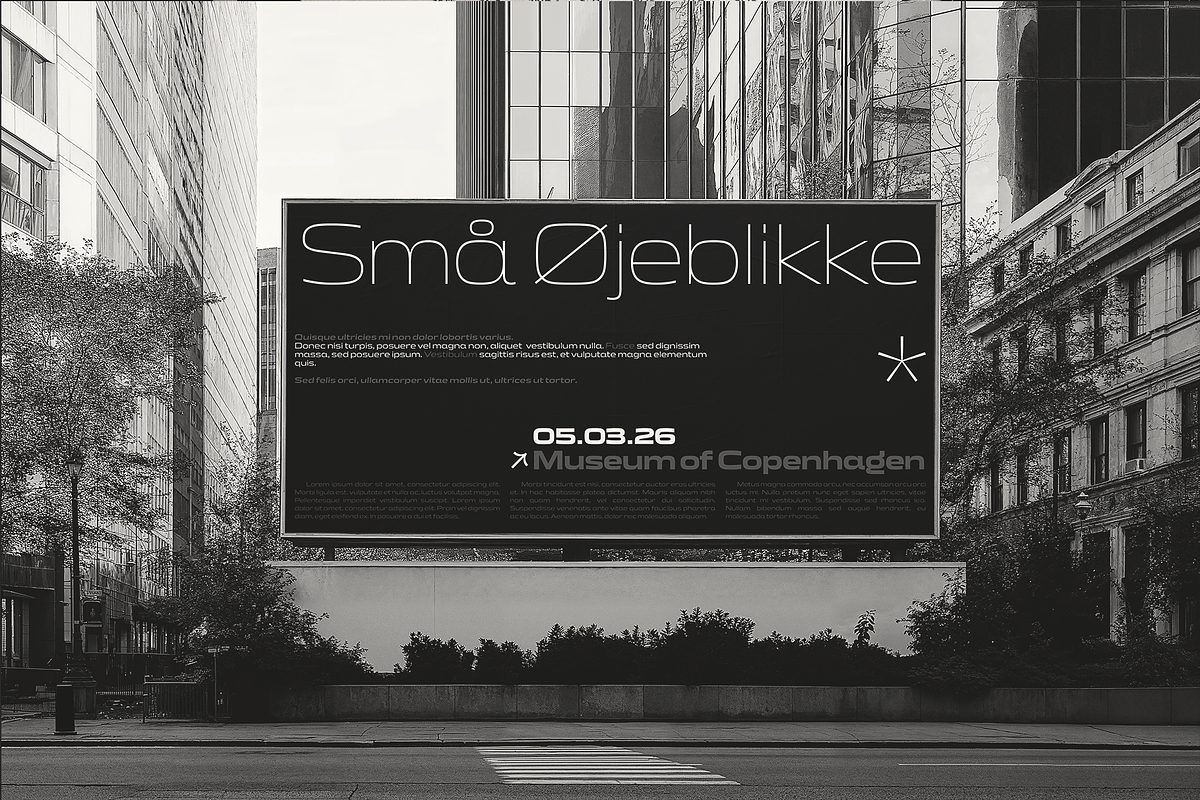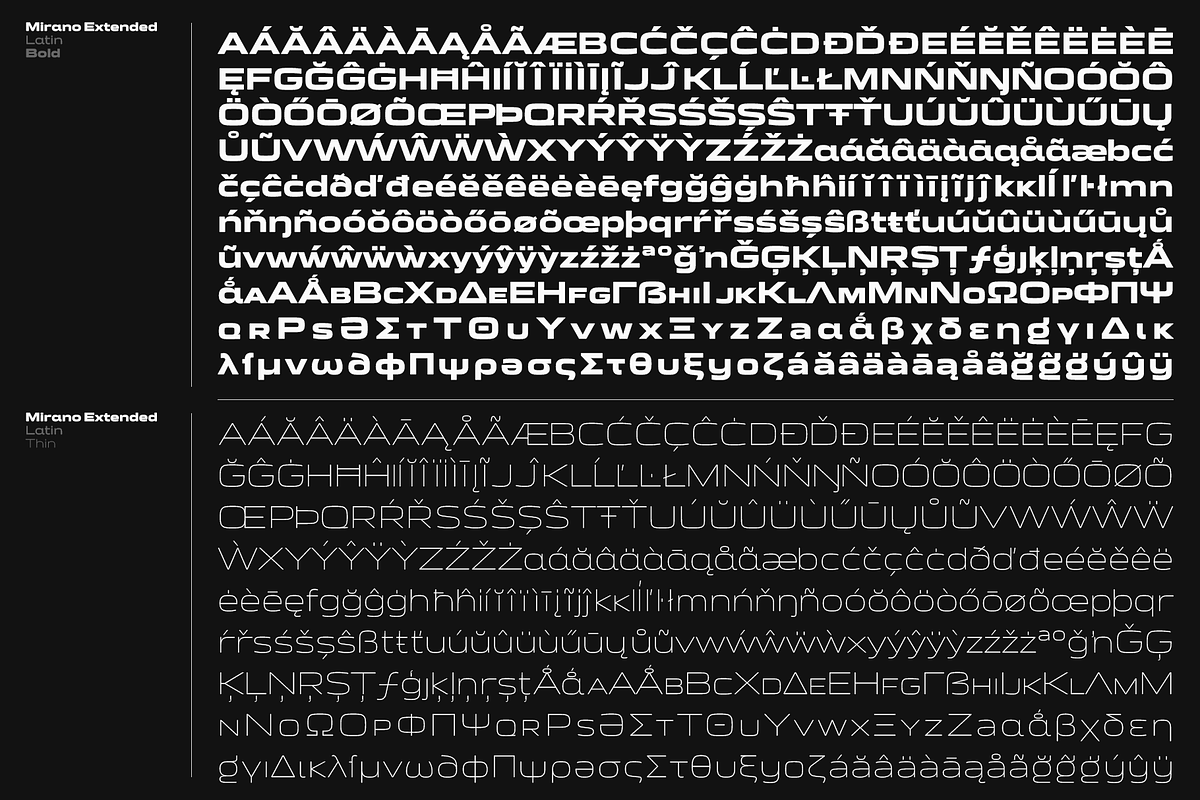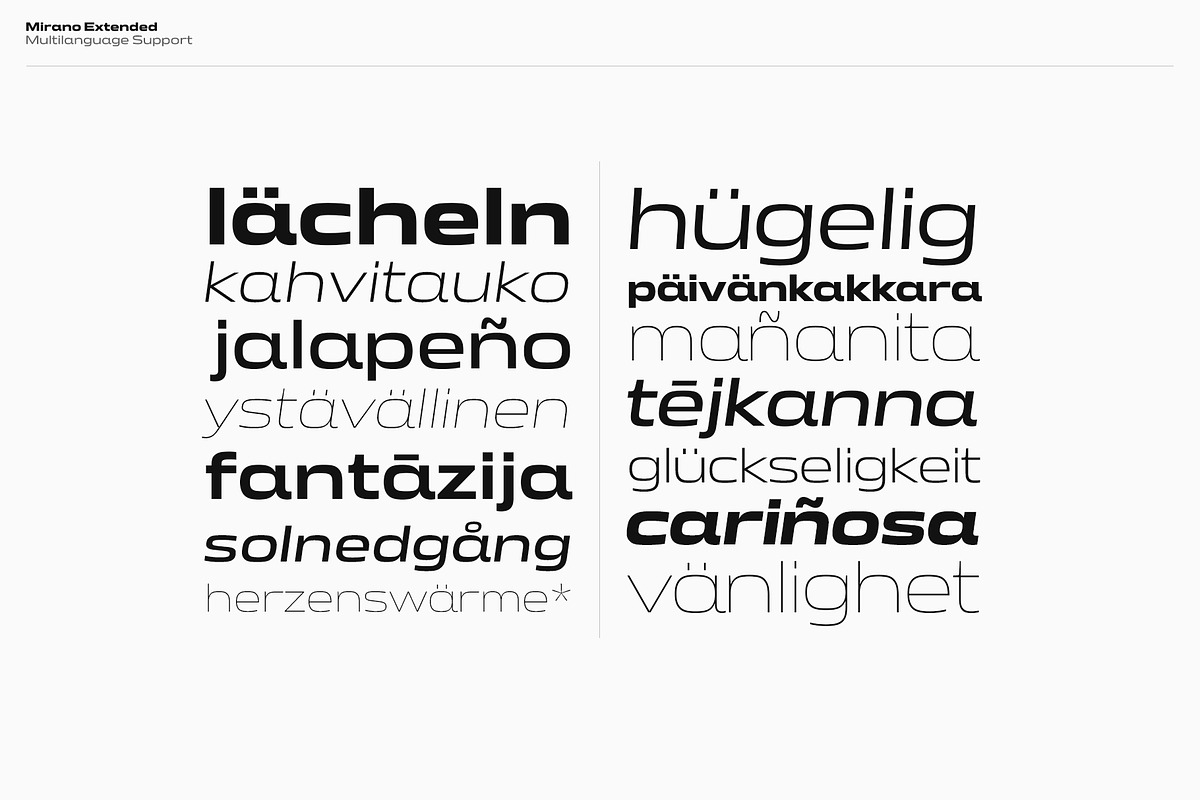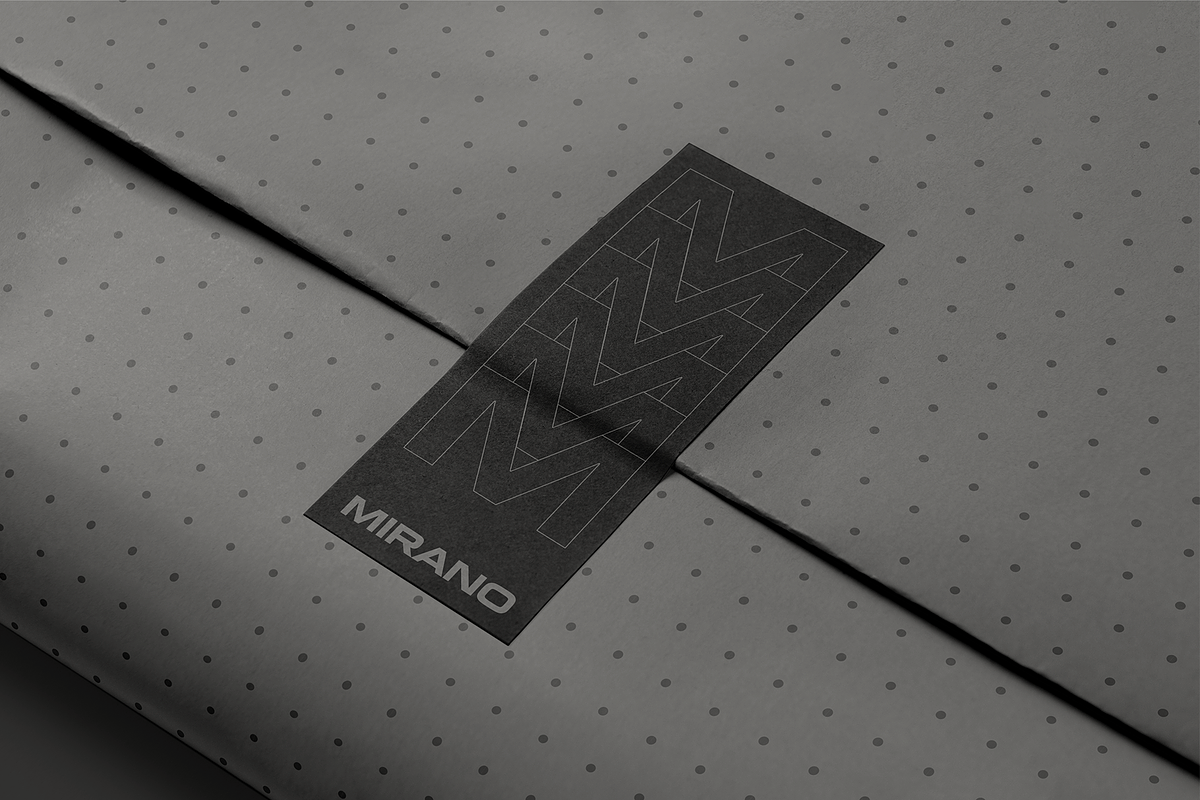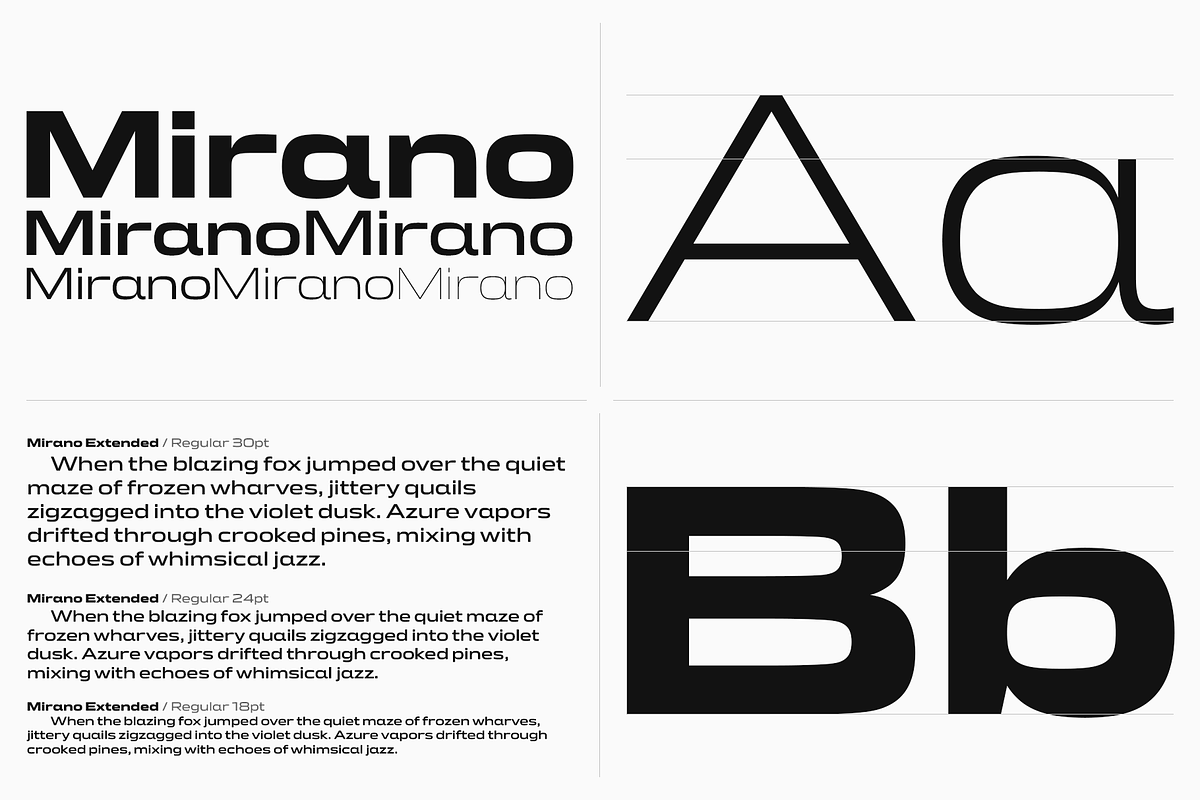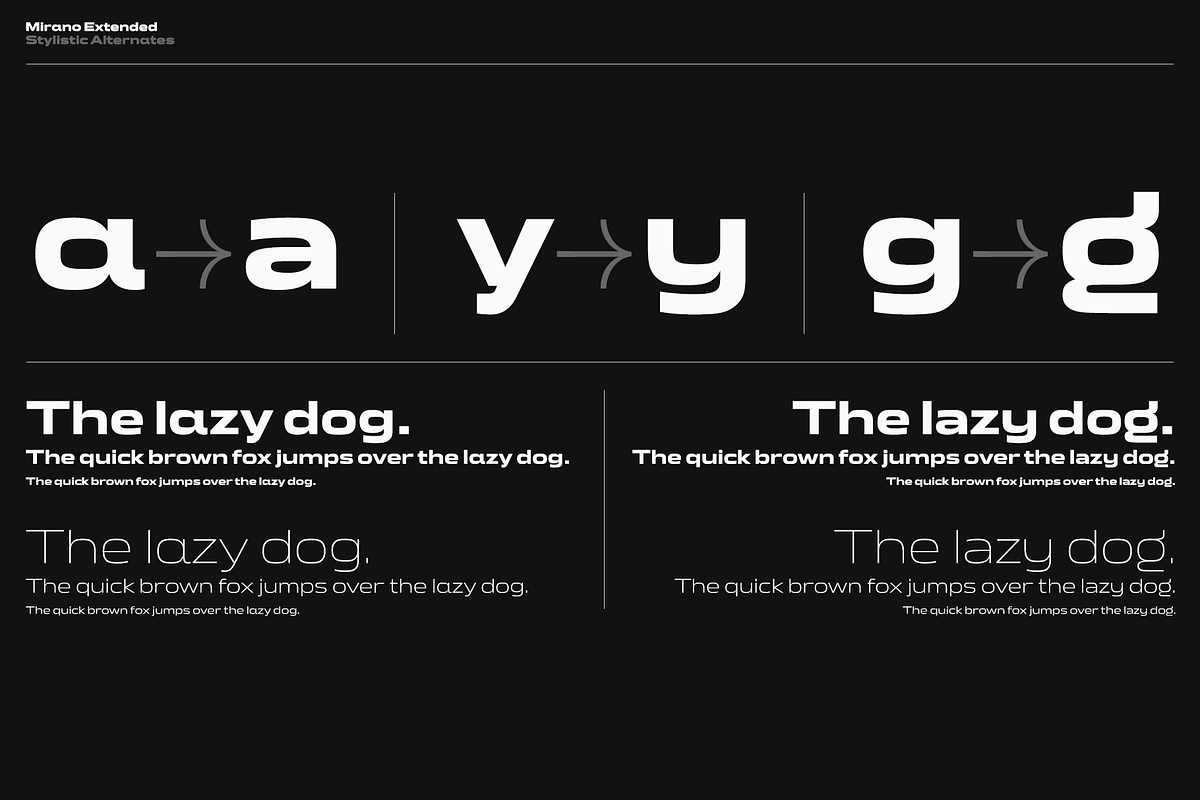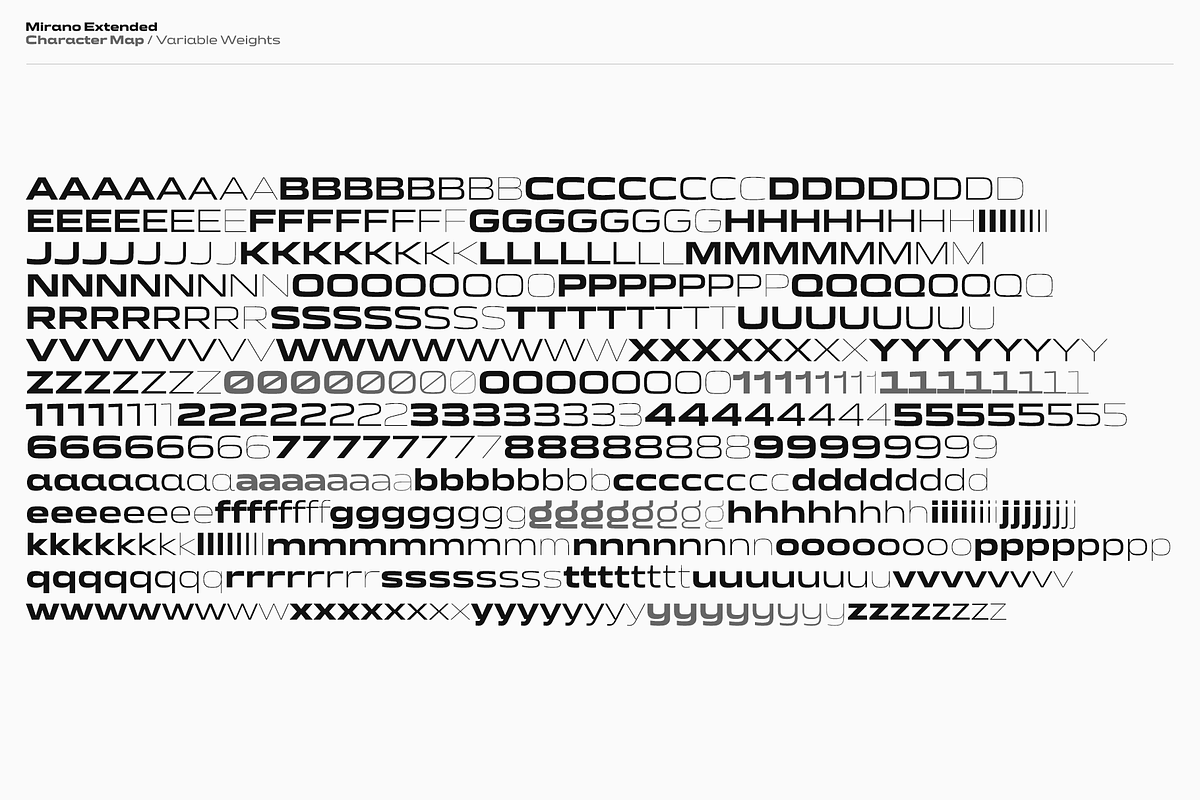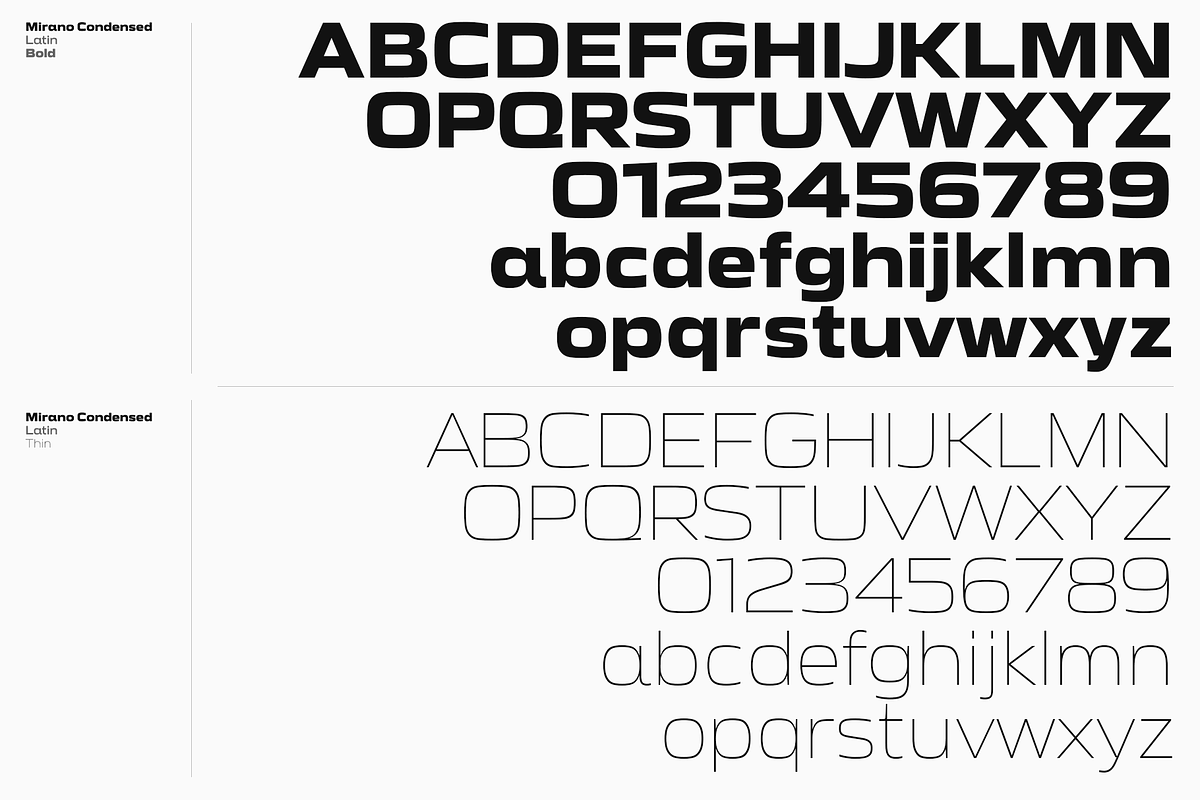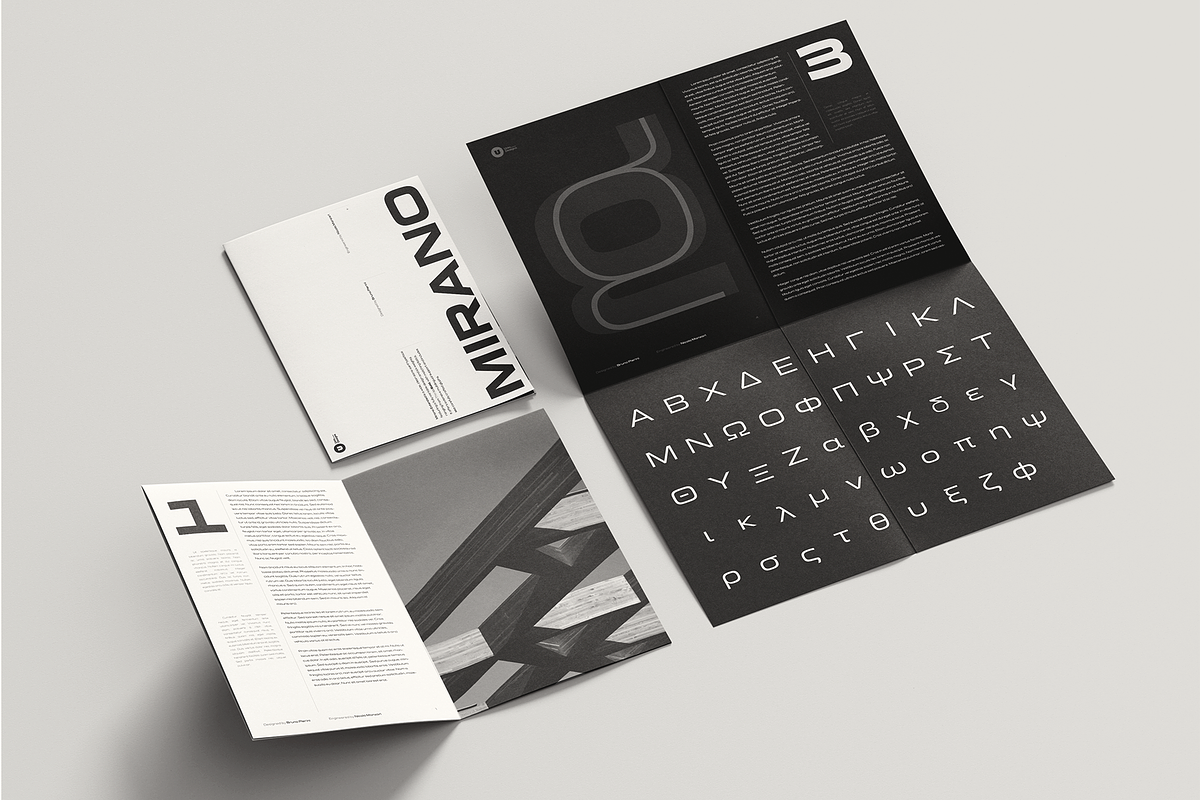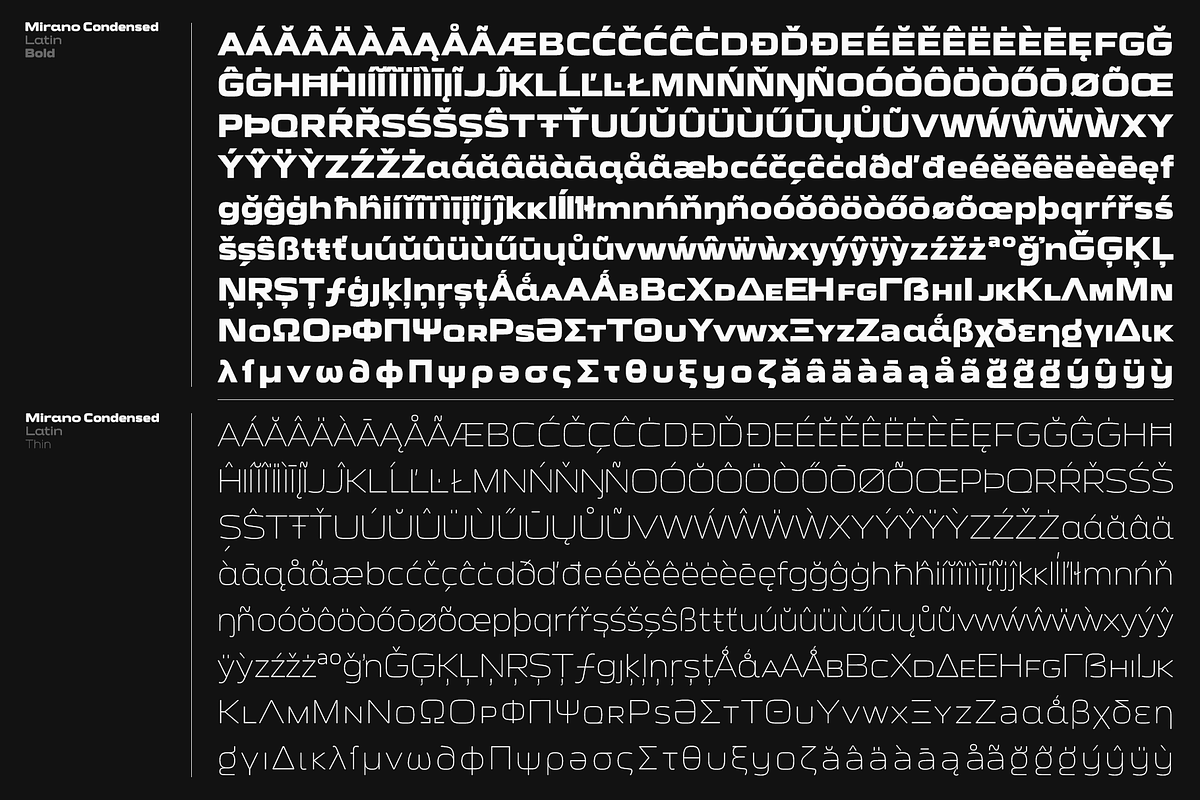
Mirano - Variable Type System
Mirano — Geometric Variable Type System
Mirano is a variable typeface inspired by the iconic lettering of classic German automotive design, reimagined for today's visual standards. Its geometric structure, influenced by Aldo Novarese's Eurostile, feels measured and confident — refined with a more expansive stance, a sharper rhythm, and a streamlined finish. The result is a type family with a mechanical yet premium atmosphere, built for clear, authoritative headlines and dependable performance across modern design systems.
Mirano spans a full variable weight axis from Thin to Bold, now available across Normal, Extended, Semi-Condensed, and Condensed widths, giving you a complete range of proportions from a single, cohesive system. Each weight comes with a meticulously matched italic — fully redrawn for sharper rhythm and greater agility, while keeping the directness and compact efficiency of the roman styles.
This release also includes a complete kerning overhaul for tighter, more reliable spacing across every width and weight, along with a range of under-the-hood optimizations for cleaner rendering and more dependable performance in production.
Use Mirano for branding, UI typography, and digital environments where consistency, clarity, and character need to work together.
Ideal For Branding and identity systems, UI/UX typography, editorial headlines, automotive and tech-driven visual identities, digital products and interfaces.
Mirano pairs automotive authority with contemporary typographic logic — ready for interface design, identity systems, and confident editorial work.